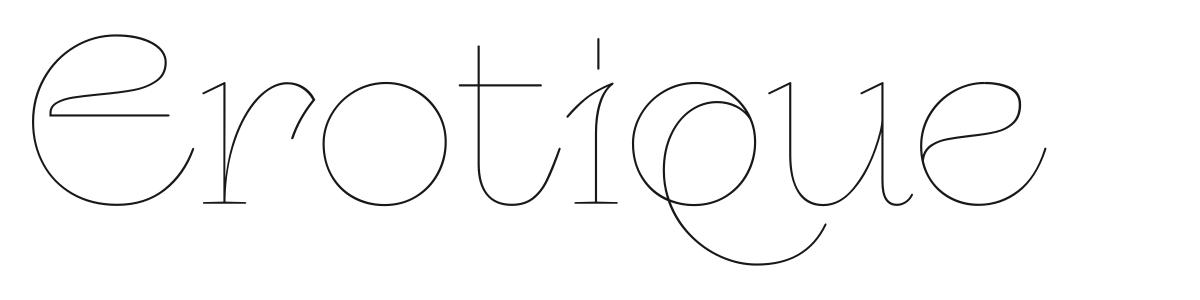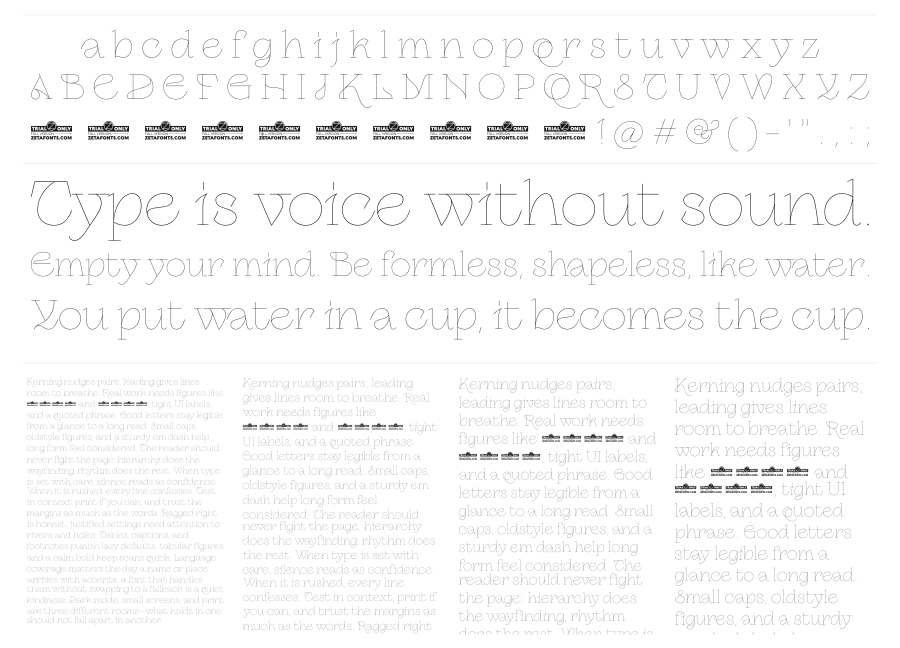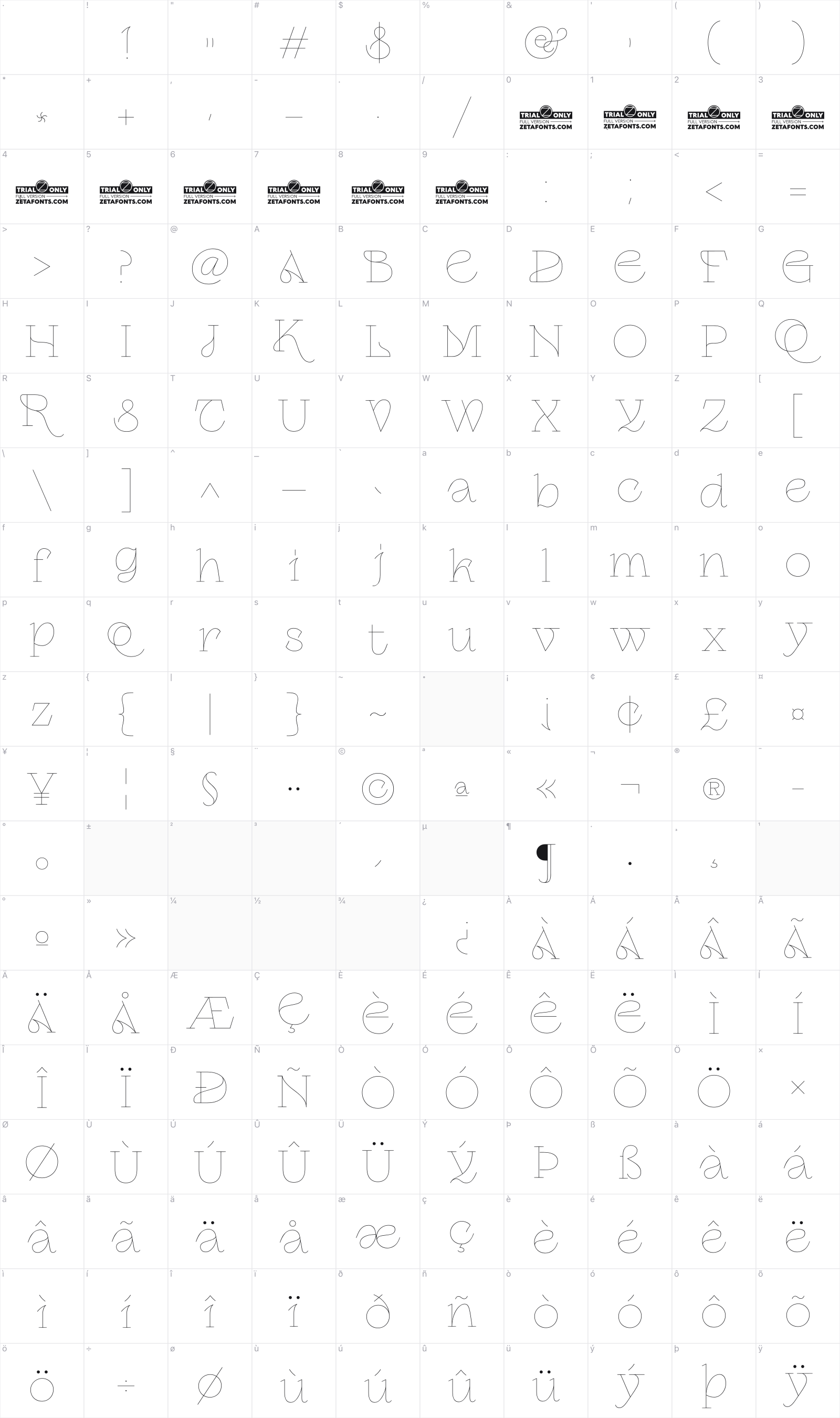
Erotique
Erotique is a hairline display serif by Cosimo Lorenzo Pancini and Mariachiara Fantini that fuses oldstyle calligraphic structure with neo-brutalist digital quirks. The ultra-thin strokes and unexpected swash connections give it a contradictory quality: delicate and aggressive at once. It was built for headlines and branding where elegance needs a sharp, unsettling edge.